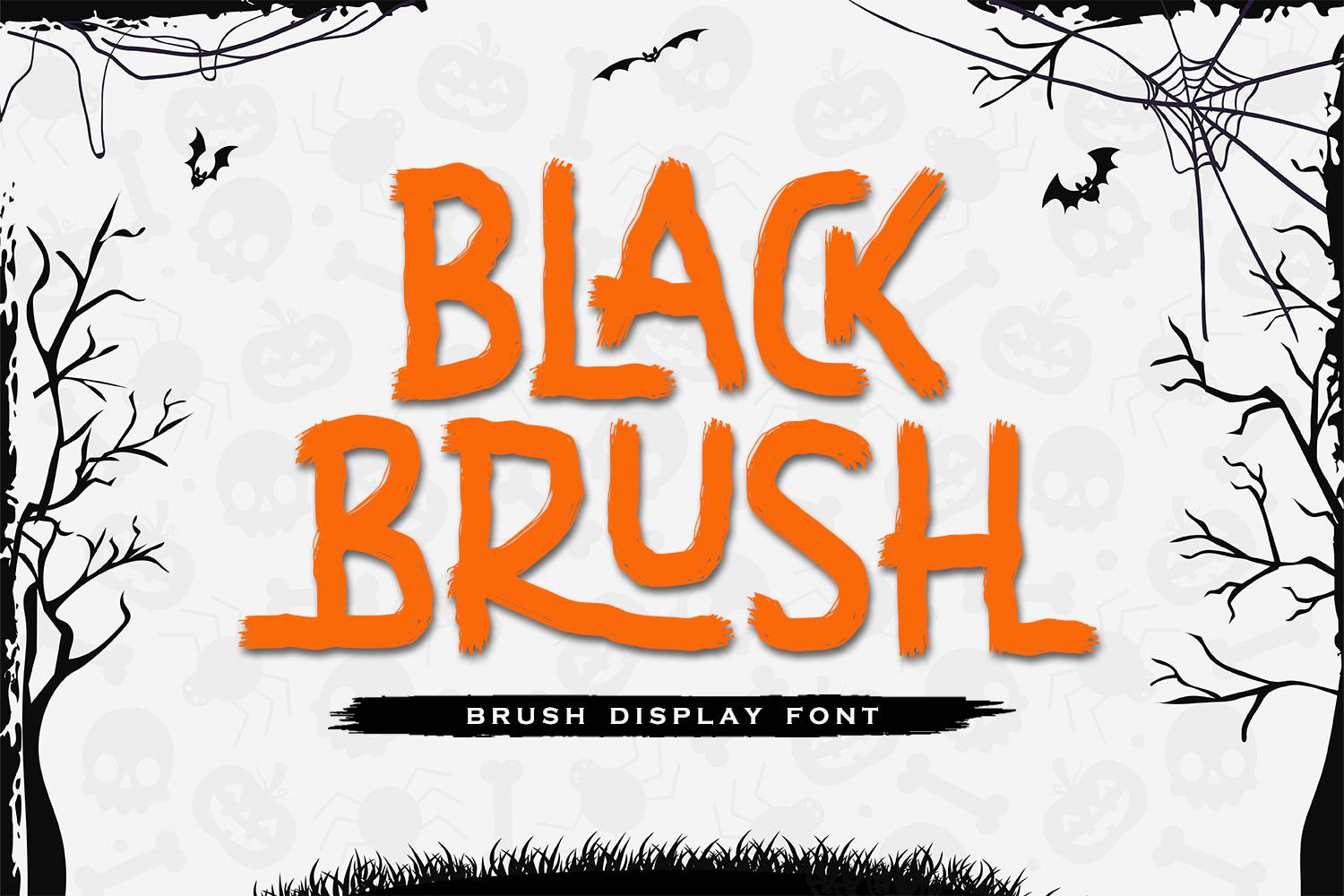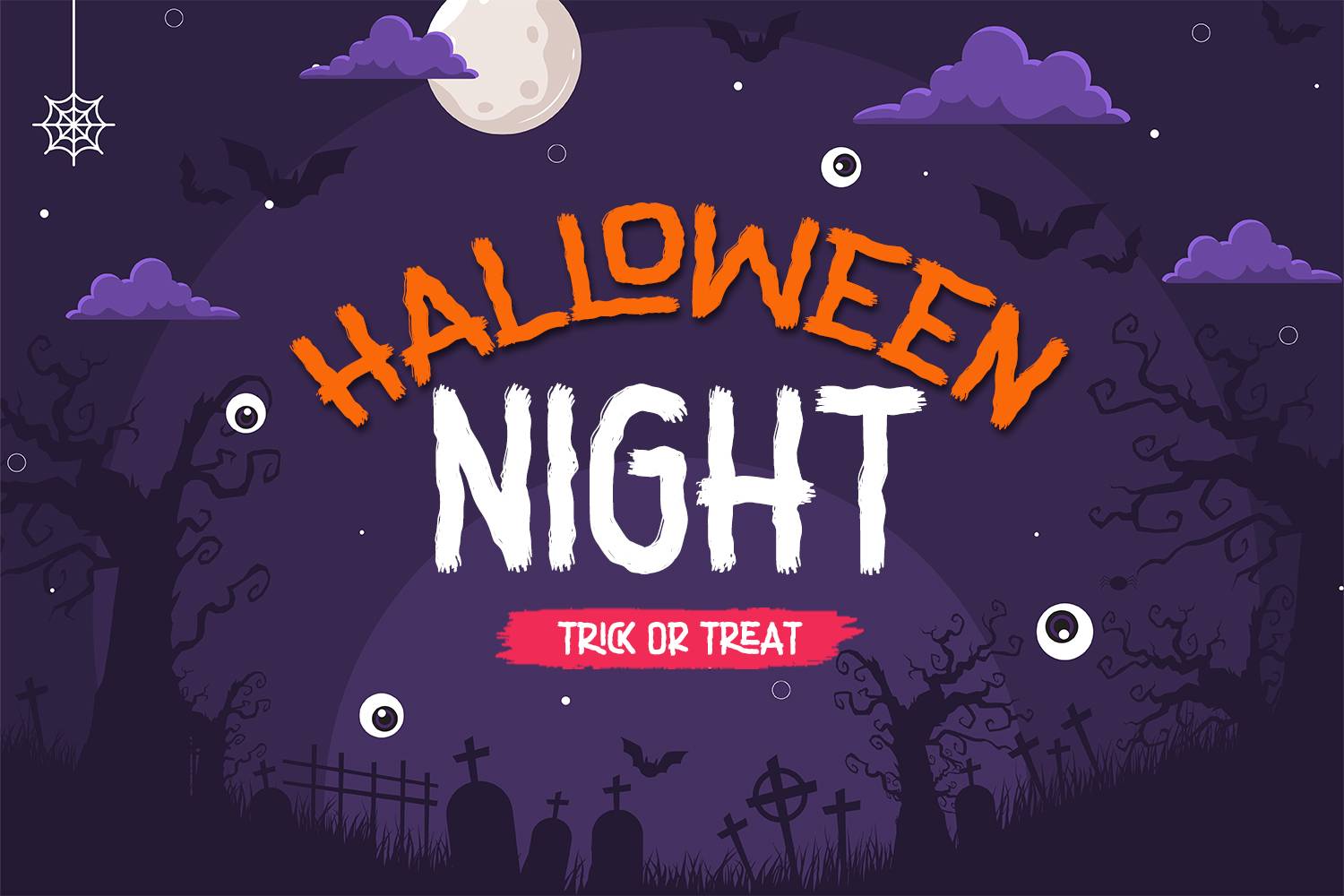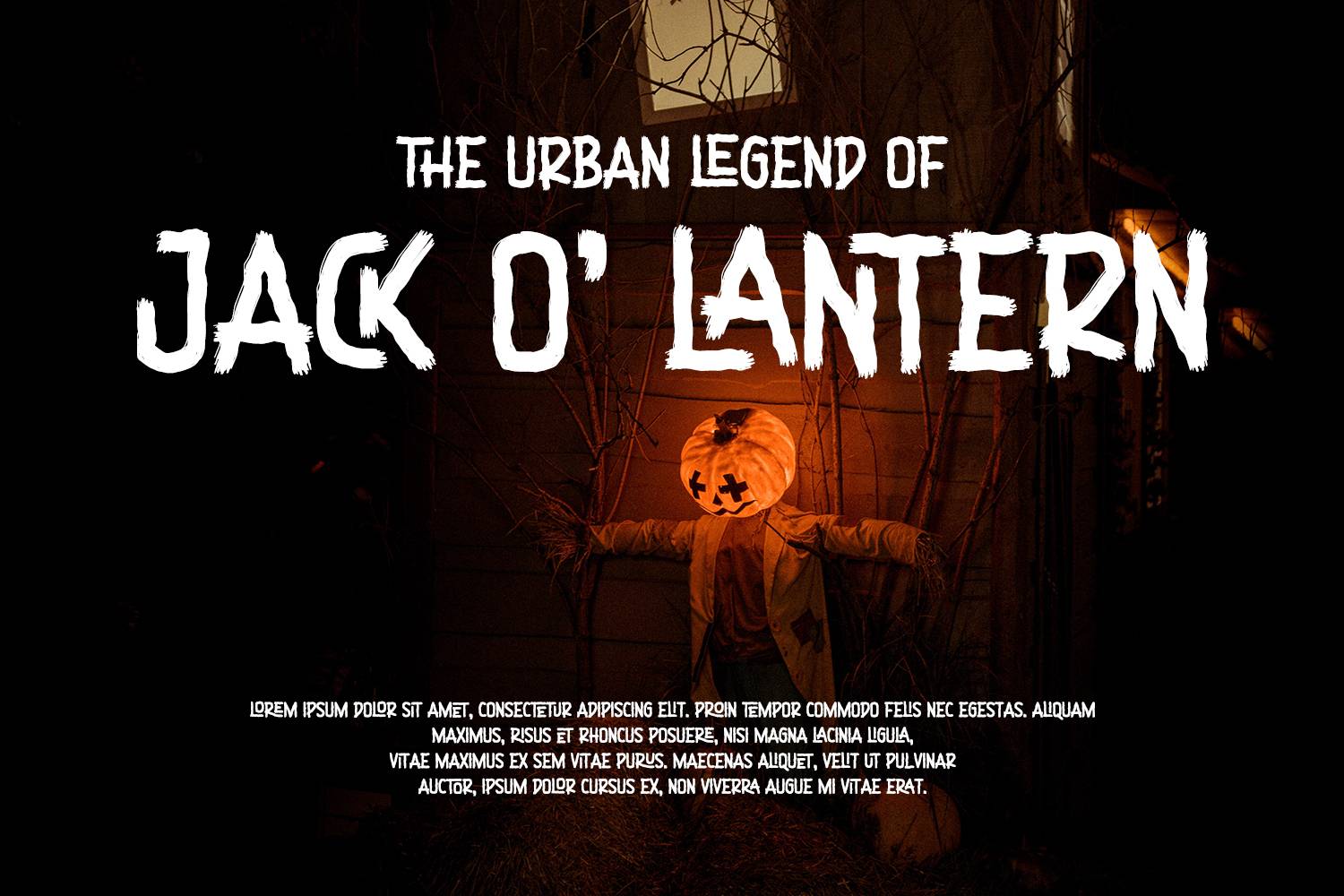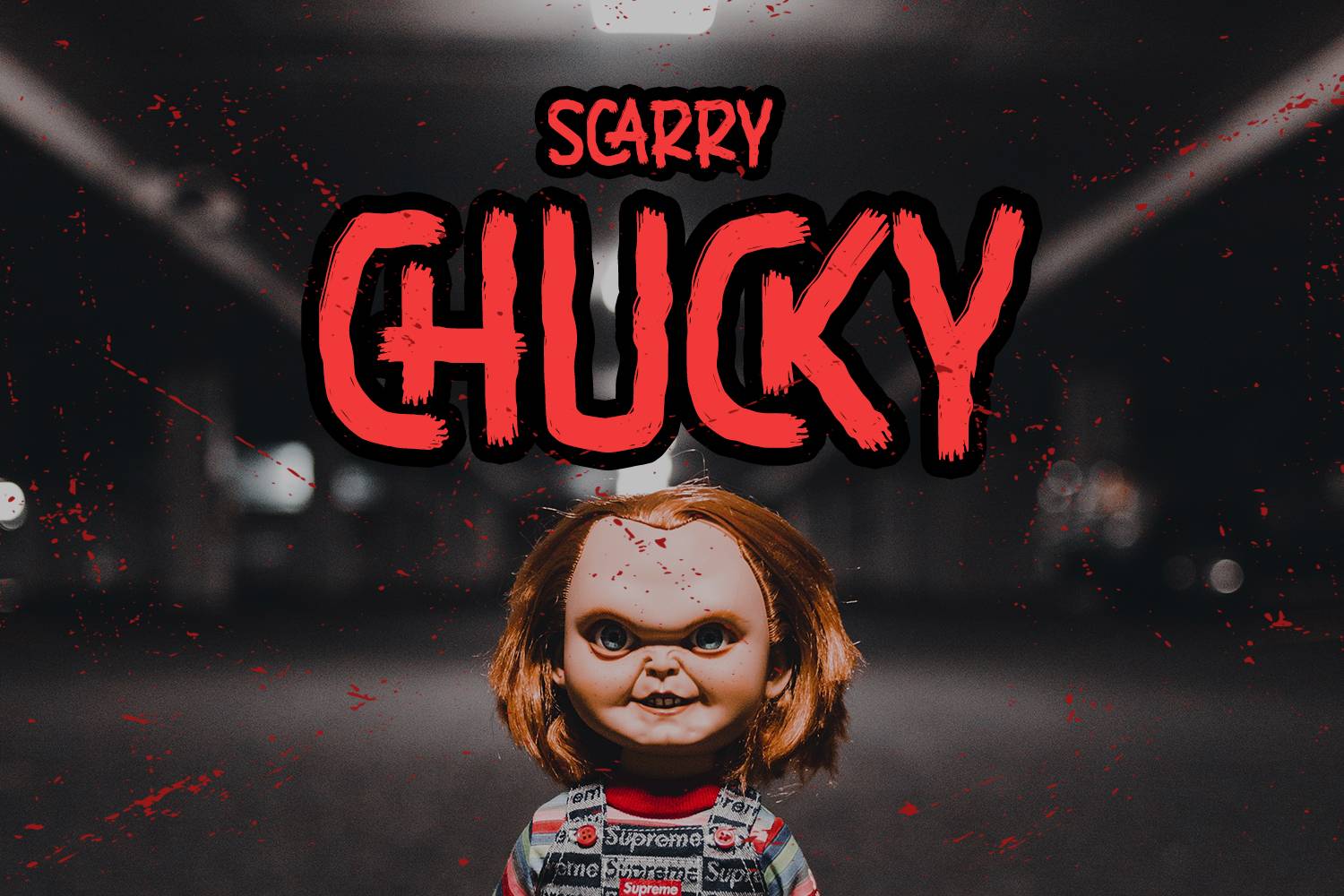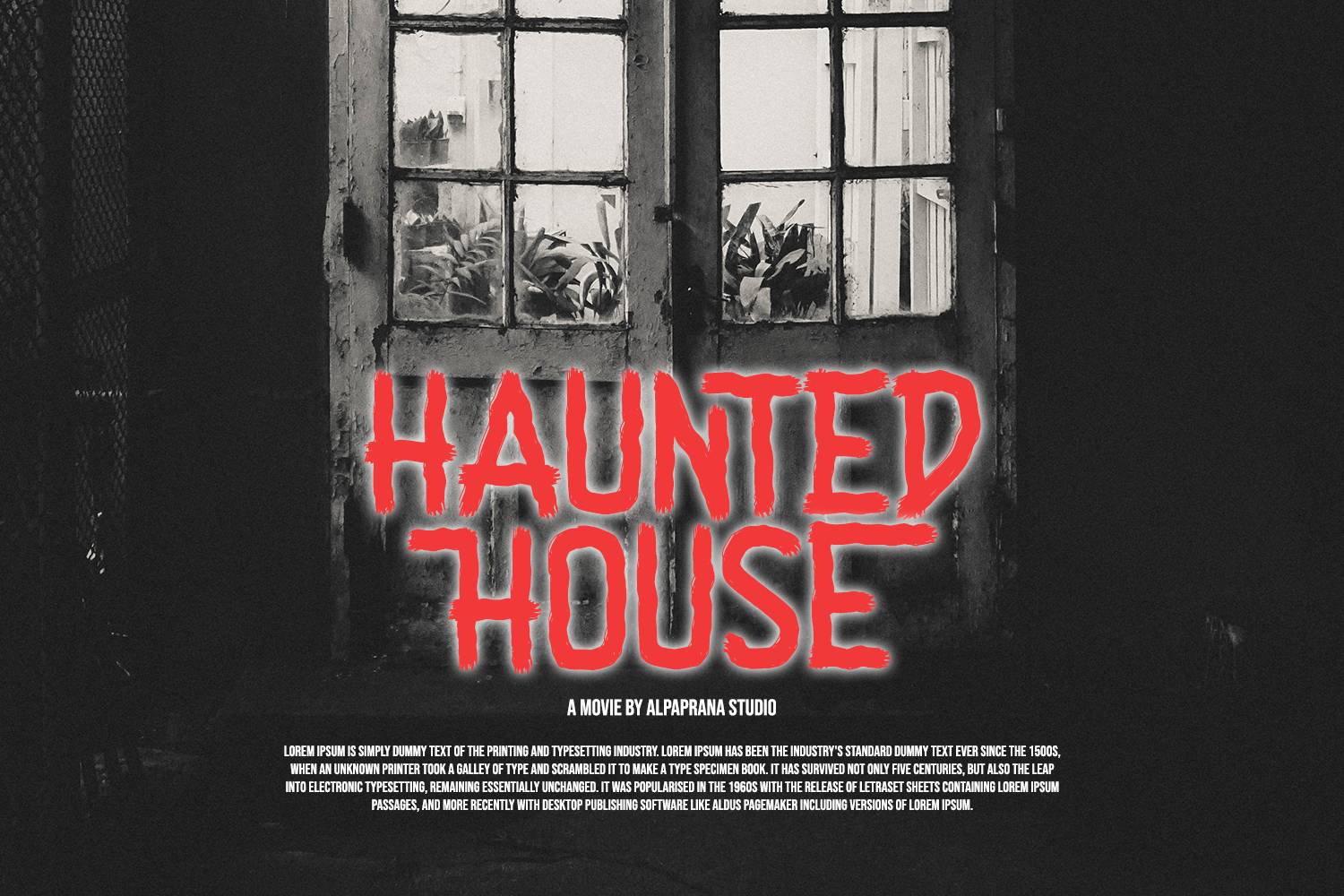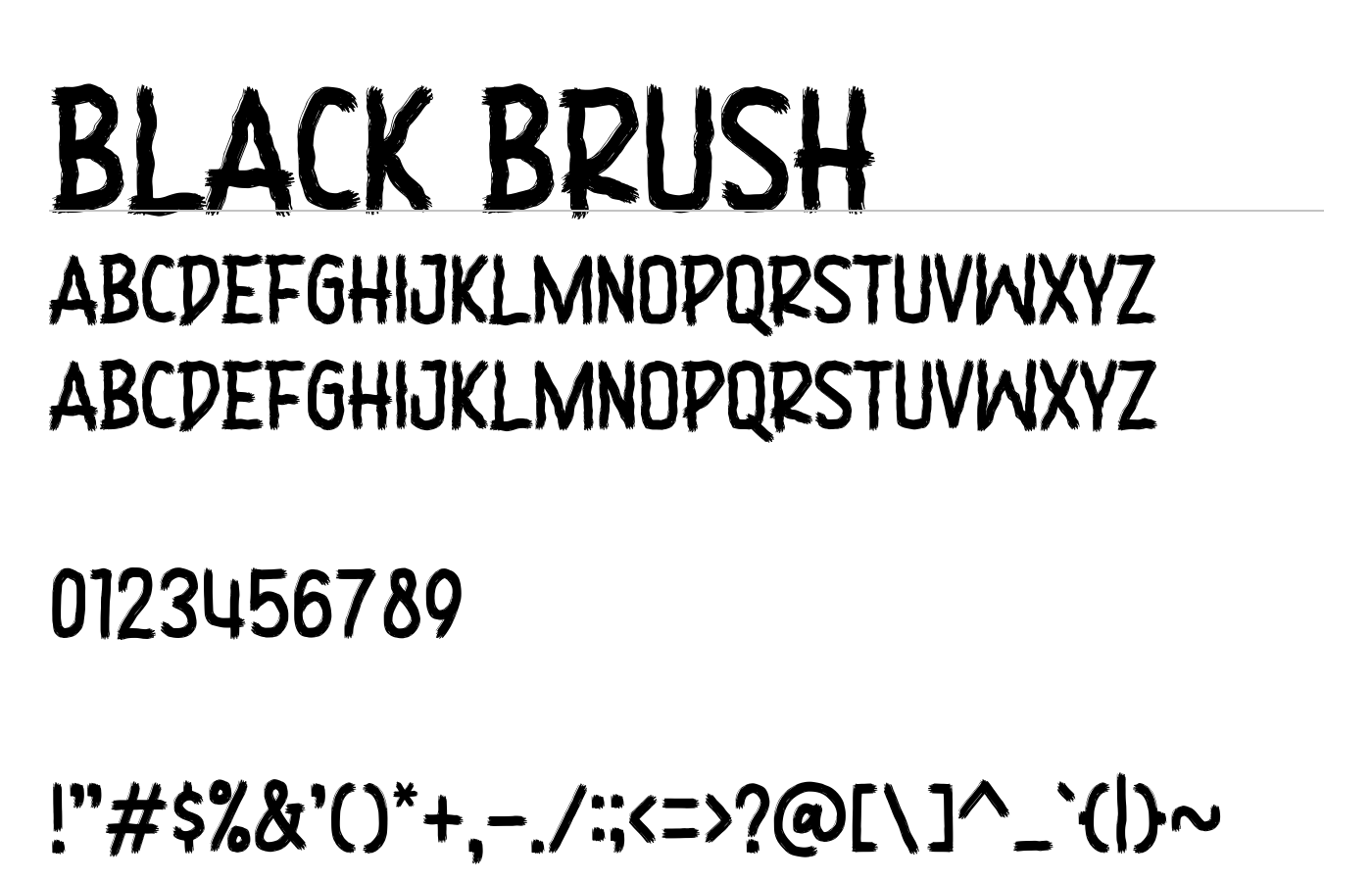
Black Brush is a bold, all-caps brush-style font characterized by rough, textured strokes that give it an edgy, hand-painted feel. Its irregular lines and organic shapes create a dynamic and expressive look, perfect for projects needing a creative, artistic touch. This font works well for posters, logos, and branding that want to convey energy and a raw, authentic vibe.
Black Brush Font
About Black Brush Font